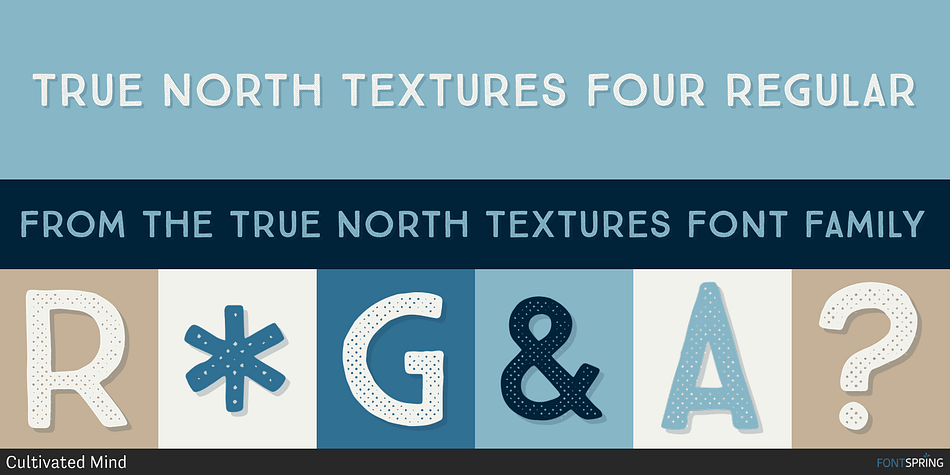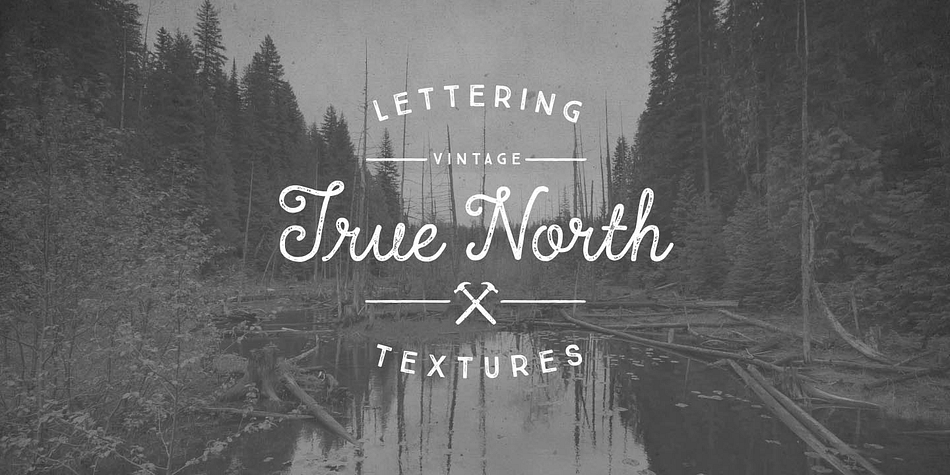
True North Textures is a multiple classification font family. This typeface has twenty-two styles and was published by Cultivated Mind.
True North Textures Four Regular
True North is back but now in a distressed version and new styles! True North Textures is a vintage typeface with 18 fonts and a monoline script. True North Textures comes with distressed labels, extras and free banners. Extras include wild animals, catchwords, numbers, mountains, symbols, tools, leaves and trees.
True North Textures is a headline font with alternate capitals. Combine all 18 styles with the script, banners, labels and extras and you get a wonderful distressed vintage design.